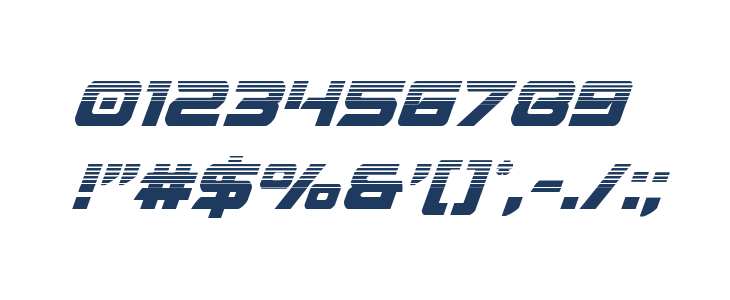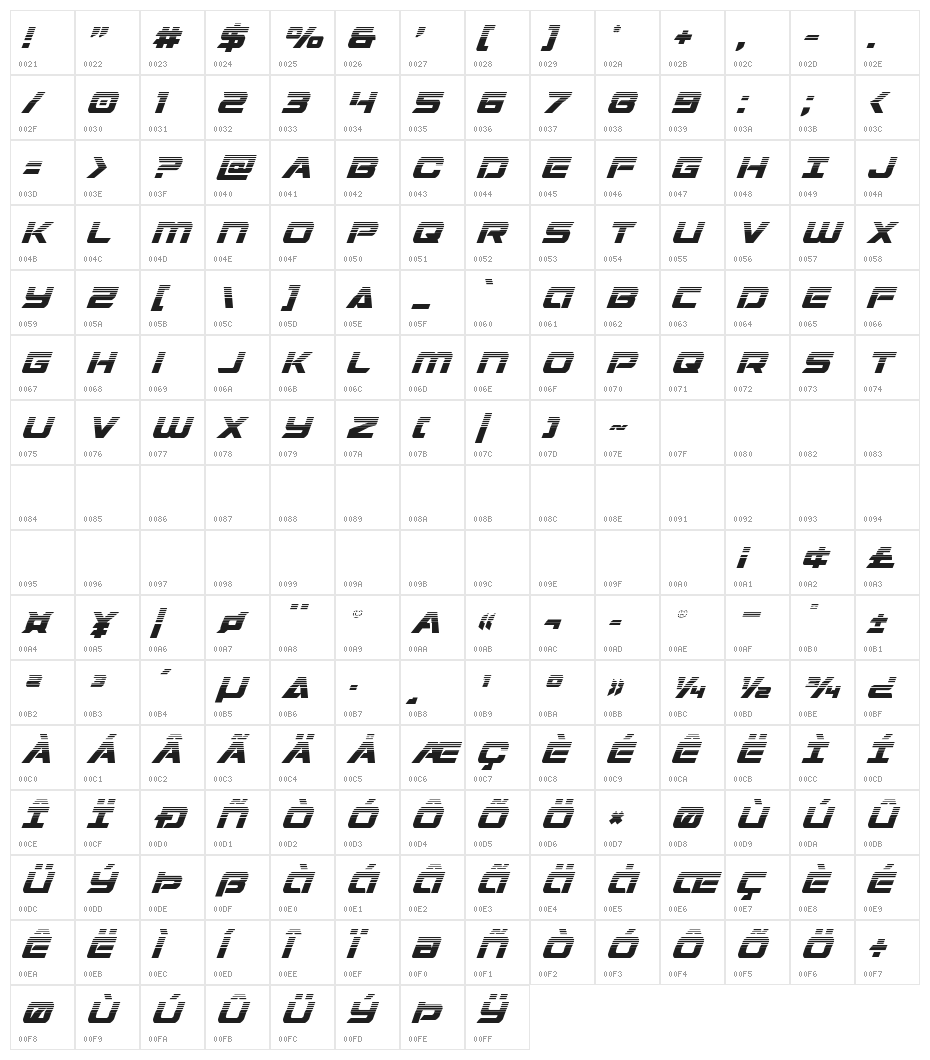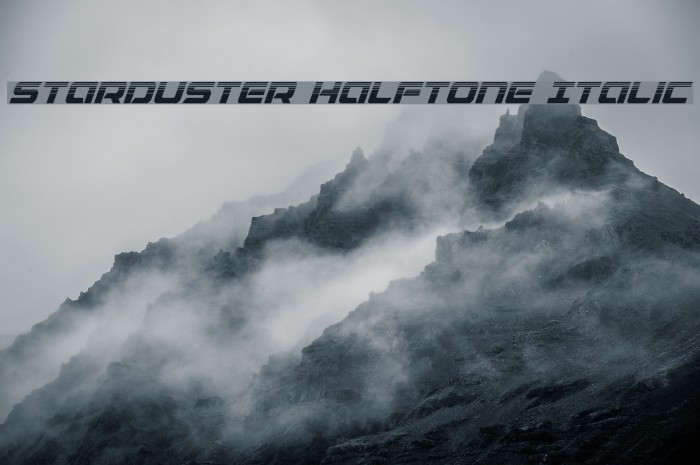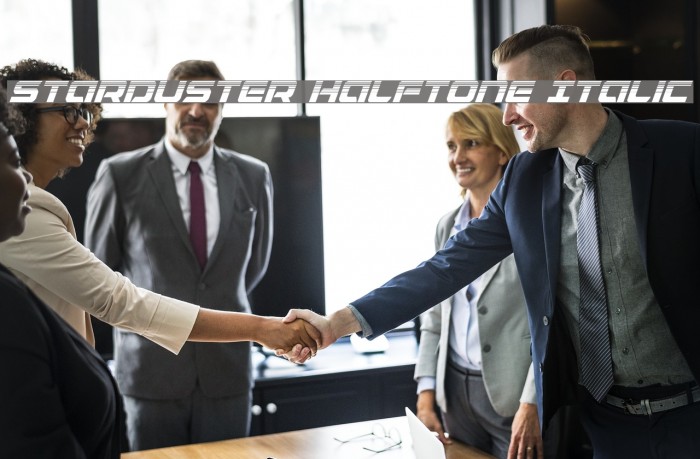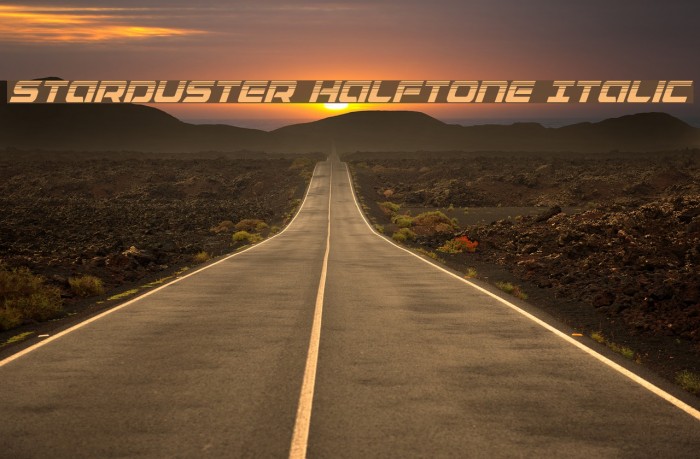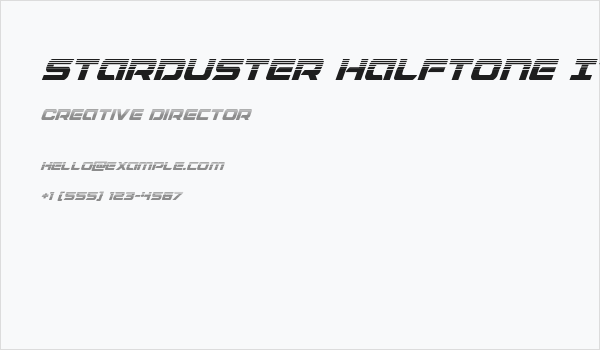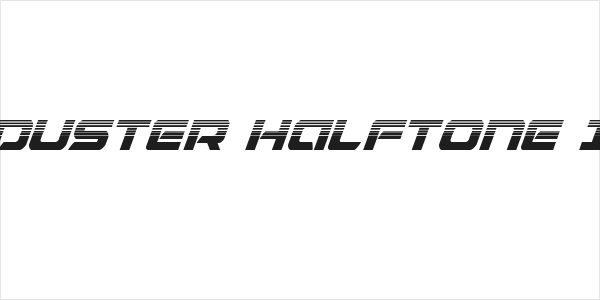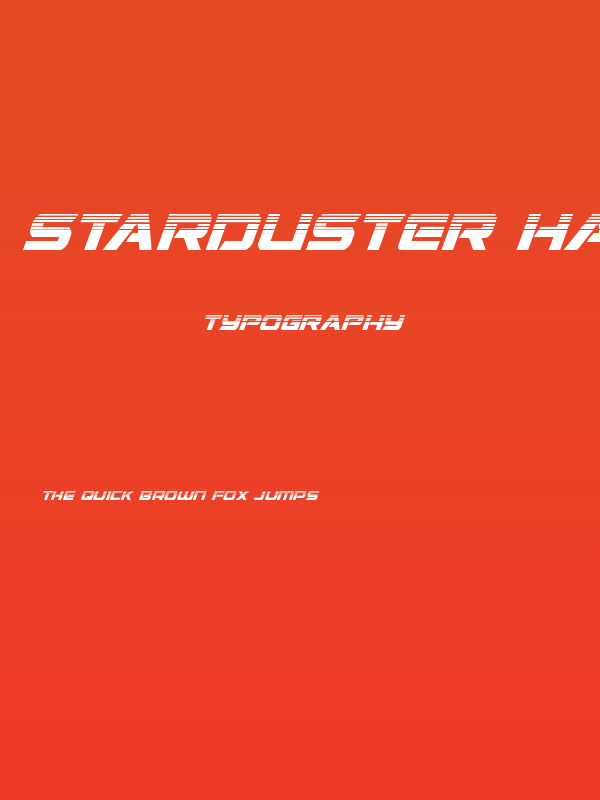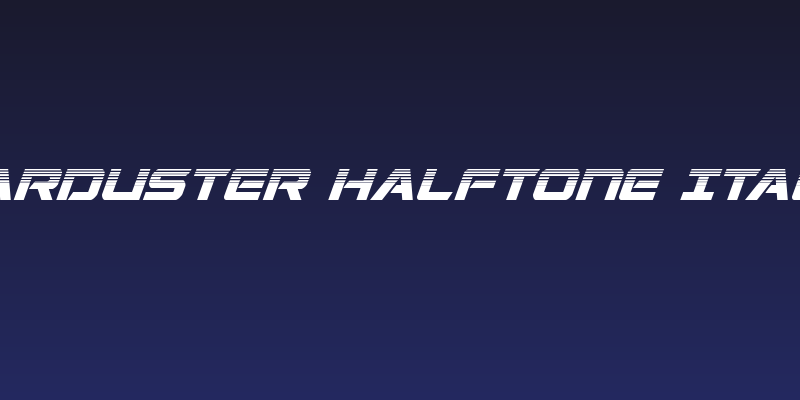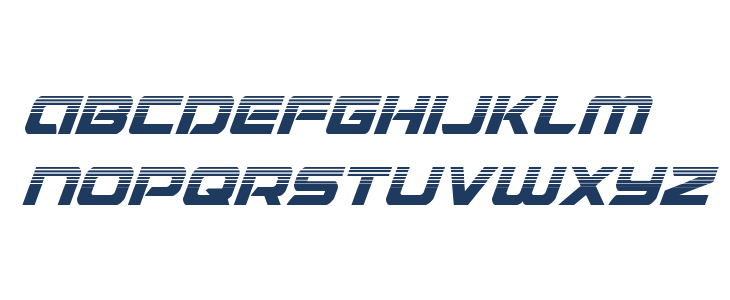
Starduster Halftone Italic Font
Starduster Halftone Italic Description
This font features a dynamic and futuristic design with a halftone effect that gives it a unique, textured appearance. The italicized style adds a sense of motion and speed, making it ideal for projects that require a modern and energetic look. The characters are bold and wide, with a distinctive slanted orientation that enhances its contemporary appeal. The halftone pattern creates a striking visual effect, making the font stand out in any design. Its boldness and unique style make it suitable for eye-catching headlines and creative projects.
Proposed ProjectsIdeal for sci-fi themed posters, video game titles, futuristic branding, and dynamic advertisements.